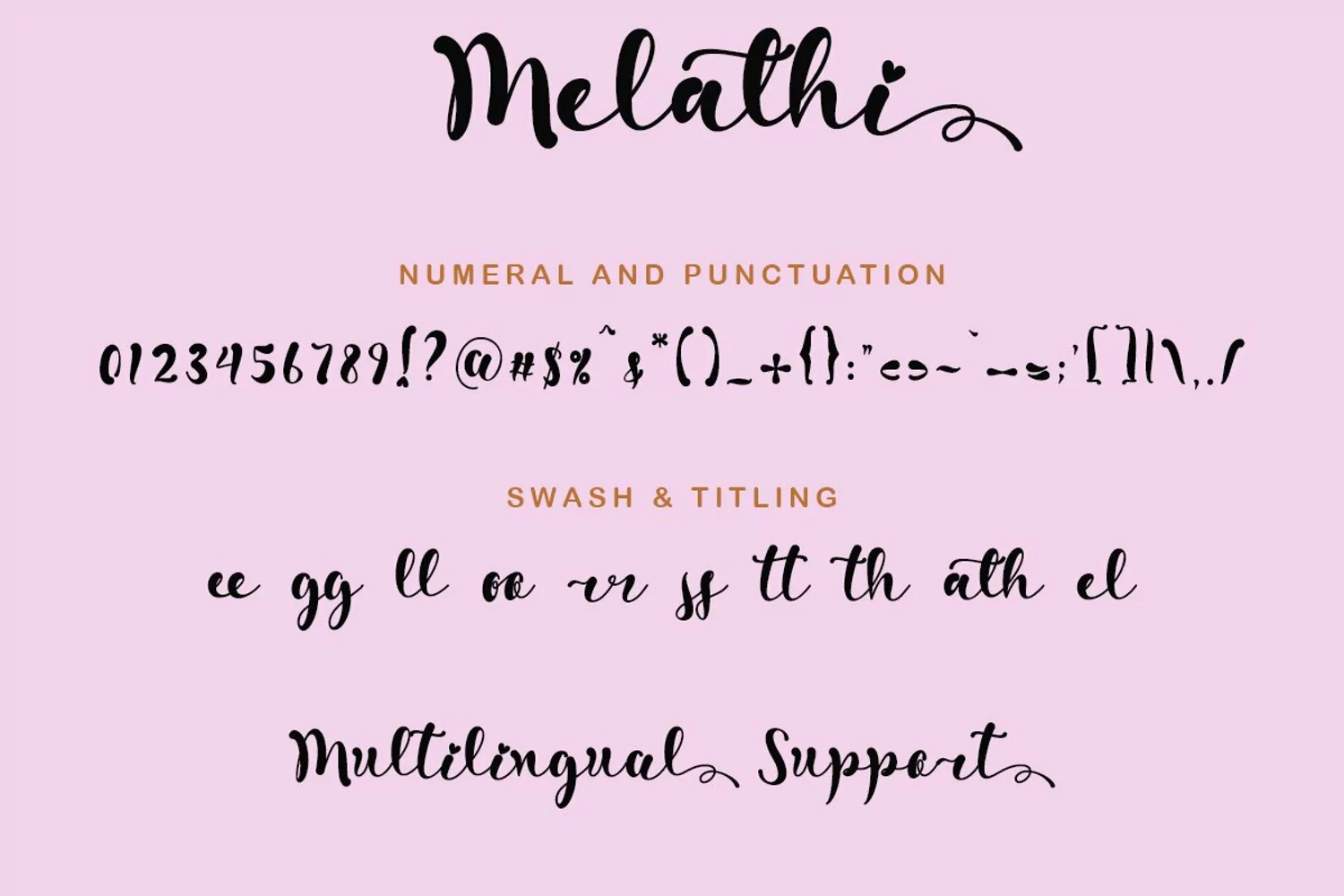
"Melathi" is a calligraphy font that is very beautiful, simple, elegant and can be used for all your needs. This font is very easy to use. To bring out the letter decoration is also very simple. In the preview there is also a way to bring out the letter decorations. This font is perfect for weddings, potography, traveling, earth day, quotes, spring, summer, logos, branding, banners, posters and more.